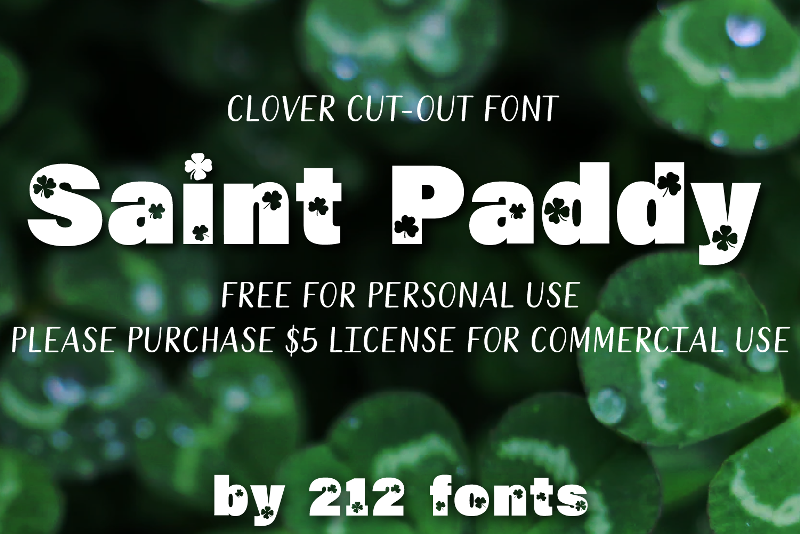
Saint Paddy is a bold clover cut-out font free for personal use only. Great for St. Patrick's day and Ireland projects! Buy a $5 commercial use license here: https://www.twenty3stars.com/collections/fonts-by-212-fonts https://www.creativefabrica.com/ref/236350/ https://fontbundles.net/212-fonts Donations appreciated! |